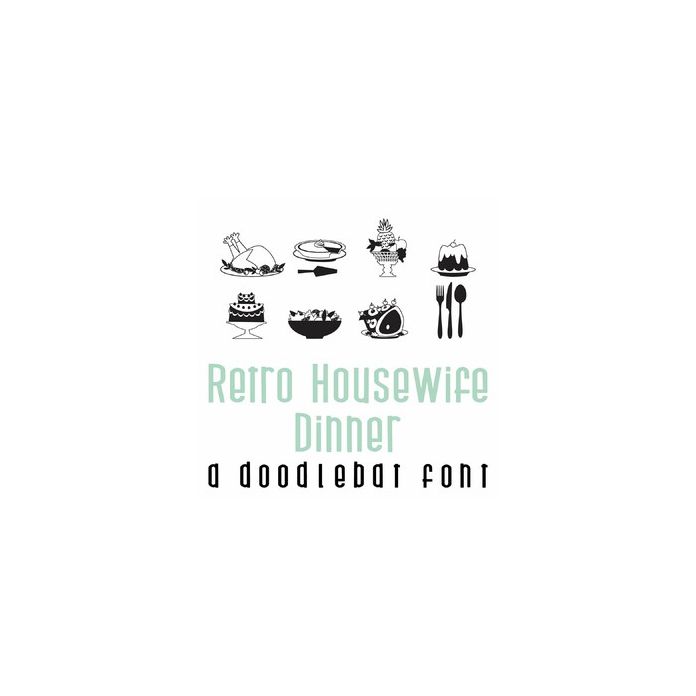
Retro Housewife Dinner Doodlebat Font
This fun doodlebat font features 26 retro styled dinner images perfect for the holidays, decor, planner stickers, crafts, scrap book pages and more!